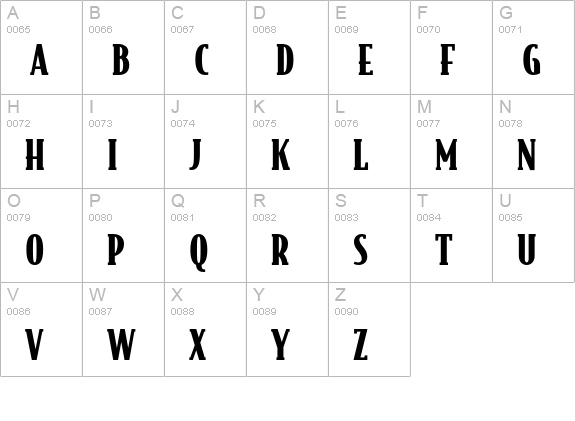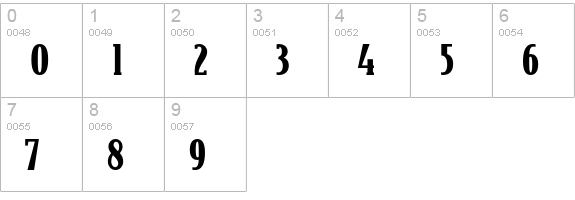
BodegaSerif-Black is a maximum-weight, dramatic variant in the BodegaSerif typeface family \xE2\x80\x94 well suited to maximum-impact headlines, posters, and packaging.
BodegaSerif-Black is a bold and commanding typeface that exudes elegance and sophistication. Its strong, thick strokes make a striking statement while still maintaining a sense of refinement. This font is perfect for headlines, titles, and other design elements that demand attention. What sets BodegaSerif-Black apart is not only its impressive visual impact but also the fact that it is available for free download at FontsMarket.com. Designers and creatives looking to add a touch of luxury to their projects can now access this stunning font without any cost, making it a valuable addition to their font library. With BodegaSerif-Black, you can effortlessly elevate your designs and create a lasting impression. Download this exceptional font today and experience the power and versatility it brings to your creative projects.